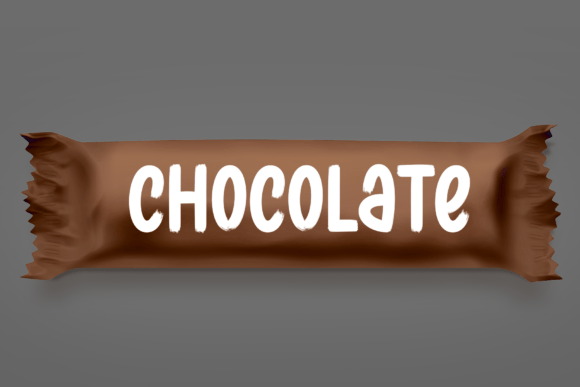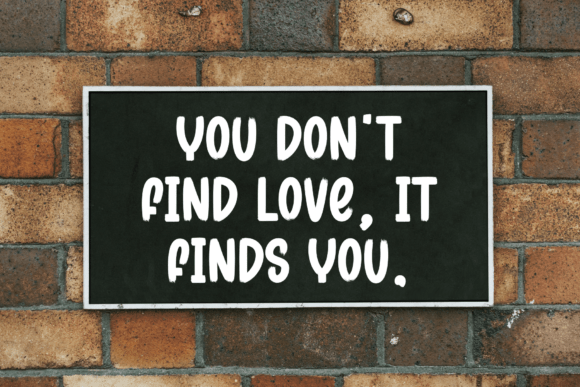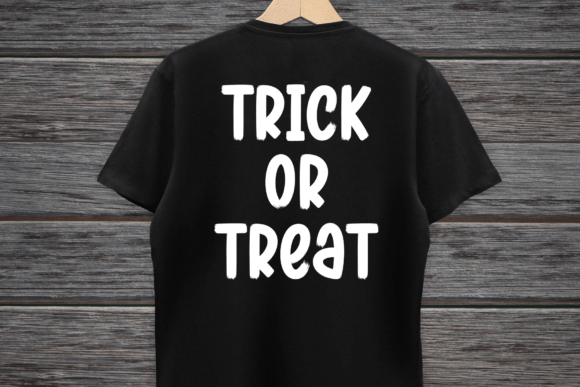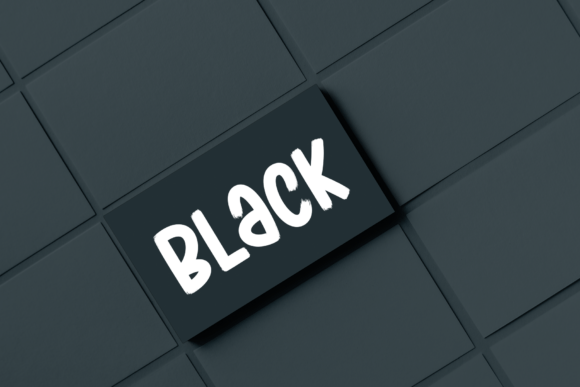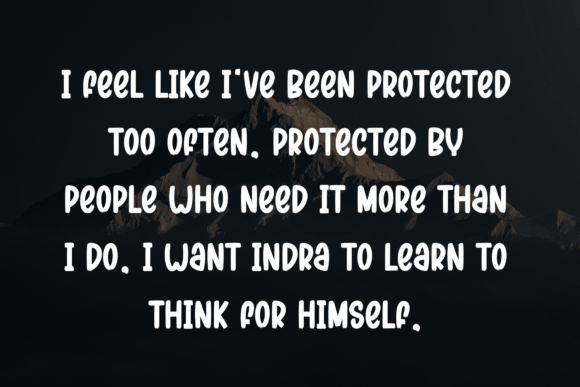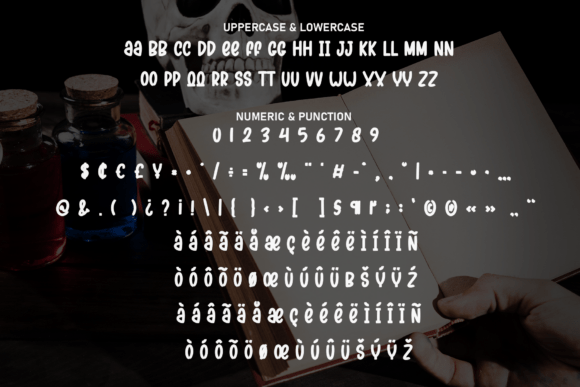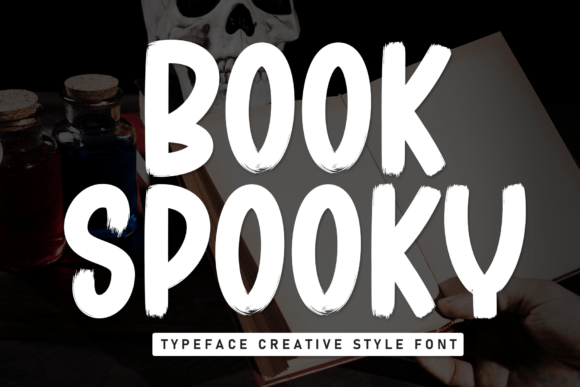
Introducing Book Spooky Font: The Perfect Blend of Simplicity and Friendliness
In the world of typography, fonts play a crucial role in conveying the tone and personality of a brand or design. For designers and crafters looking for a font that combines simplicity with a friendly, approachable vibe, Book Spooky Font is an excellent choice. This casual and neat display font is designed to capture the essence of modern handwritten typography with a polished finish, making it ideal for various design applications.
Clean Lines, Balanced Letterforms, and Subtle Rounded Edges
Book Spooky Font boasts clean lines, balanced letterforms, and subtle rounded edges that give it a unique and refreshing look. The font’s design is carefully crafted to provide a crisp structure that delivers clarity and charm in equal measure. The clean lines ensure that the text is easy to read, while the balanced letterforms create a sense of harmony and stability. The subtle rounded edges add a touch of warmth and friendliness to the font, making it perfect for designs that require a personal and approachable feel.
Ideal for Branding, Headlines, Packaging, and Digital Content
Book Spooky Font is a versatile font that can be used in various design applications, including branding, headlines, packaging, and digital content. Its warm and inviting touch makes it perfect for designs that require a personal and friendly feel. For branding, the font can be used to create a unique and memorable identity that resonates with the target audience. For headlines, the font’s clean lines and balanced letterforms make it easy to read and attention-grabbing. For packaging, the font’s crisp structure and versatile style make it an excellent choice for creating eye-catching labels and designs.
Book Spooky Font is a perfect choice for designers and crafters looking for a font that can add a touch of warmth and personality to their designs. The font’s simplicity and friendliness make it easy to pair with other design elements, creating a cohesive and visually appealing design. For designers, the font’s versatility and legibility make it an excellent choice for creating professional-looking designs. For crafters, the font’s playful and approachable vibe makes it perfect for creating handmade cards, scrapbooking, and other craft projects.
Key Features of Book Spooky Font
• Clean lines and balanced letterforms: Provide clarity and charm to the font.
• Subtle rounded edges: Add a touch of warmth and friendliness to the font.
• Versatile style: Suitable for various design applications, including branding, headlines, packaging, and digital content.
• Crisp structure: Delivers clarity and legibility to the font.
• Polished finish: Gives the font a modern and refined look.
Book Spooky Font is a unique and versatile font that combines simplicity with a friendly, approachable vibe. Its clean lines, balanced letterforms, and subtle rounded edges make it perfect for designers and crafters looking for a font that can add a touch of warmth and personality to their designs. With its crisp structure and versatile style, Book Spooky Font is an excellent choice for various design applications, including branding, headlines, packaging, and digital content.
Whether you’re a designer looking for a font that can help you create professional-looking designs or a crafter looking for a font that can add a personal touch to your handmade projects, Book Spooky Font is an excellent choice. Its simplicity, friendliness, and versatility make it a valuable addition to any design collection.